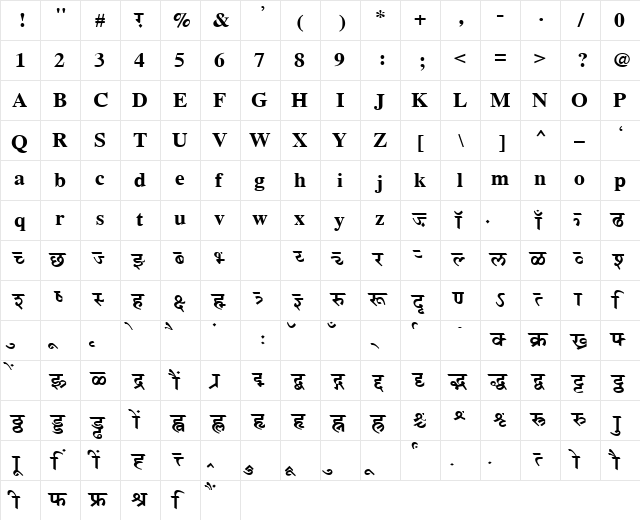
AkrutiOfficePriya Bold Font Preview
AkrutiOfficePriya Bold
Design Context for AkrutiOfficePriya Typeface
AkrutiOfficePriya offers clean, dependable letterforms without strong stylistic allegiance, making it a practical choice for designers who need flexibility. The heavy weight commands attention and anchors typographic hierarchies.